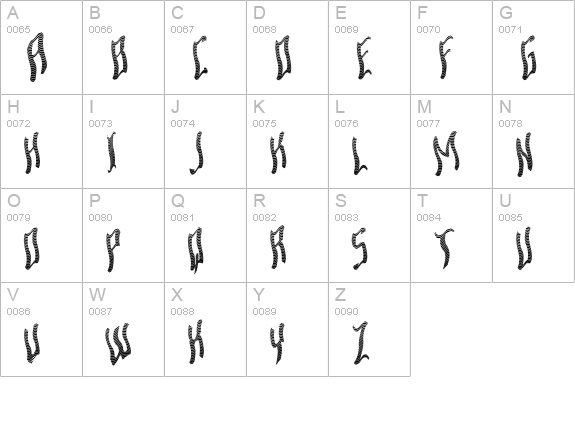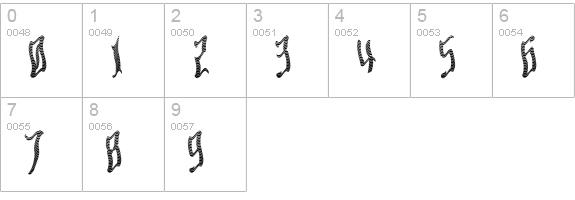
Ardour Waved Font Details
Introducing Ardour Waved font, a stunning display typeface that exudes elegance and sophistication. Its unique waving design adds a touch of whimsy and charm to any project. Perfect for invitations, branding, posters, and more, Ardour Waved font is sure to make a statement. The best part? Ardour Waved font is completely free for personal and commercial use. You can easily download this beautiful font at FontsMarket.com and start using it in your designs today. Don't miss out on this fantastic opportunity to add a touch of creativity to your projects with Ardour Waved font.